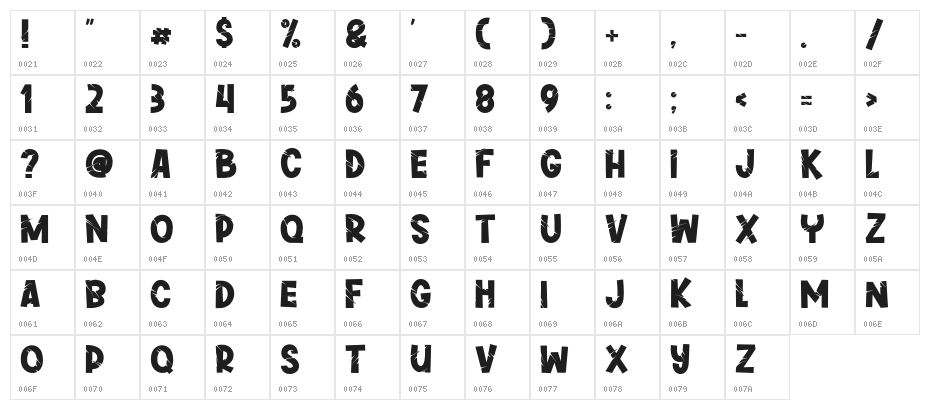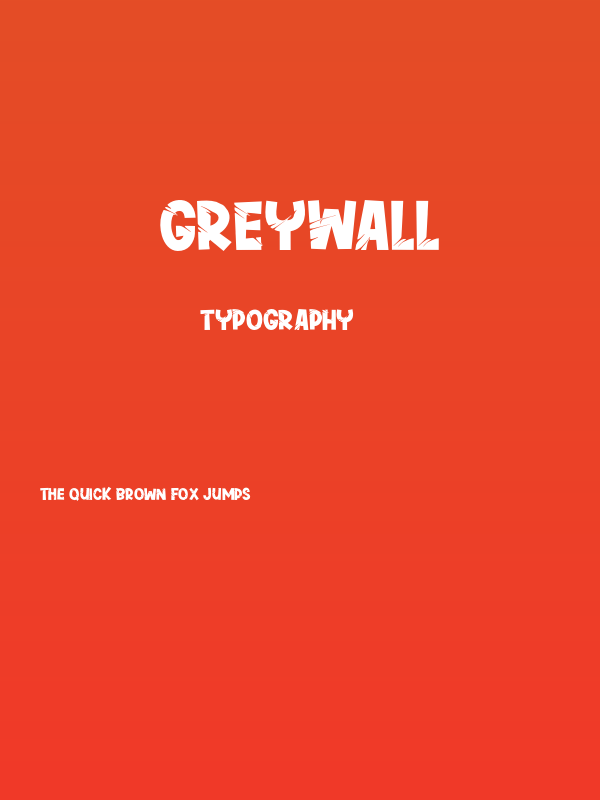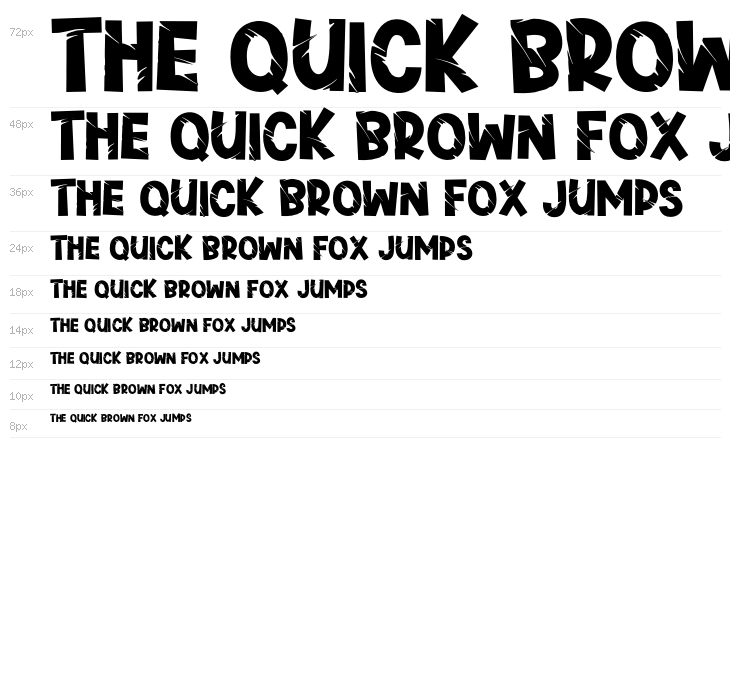
Greywall Font
Greywall Description
This font features a bold and dynamic style with a distressed, grunge-like appearance. The characters are thick and robust, with irregular cuts and slashes that give them a rugged, edgy feel. The uppercase and lowercase letters maintain a consistent weight, contributing to a cohesive look. Numbers and special characters are designed with the same distressed aesthetic, ensuring uniformity across all glyphs. This font's unique design makes it stand out, ideal for projects that require a strong visual impact. Its boldness and distinctive style make it suitable for attention-grabbing headlines, posters, and branding materials.
| Use Case | Headlines, Posters, Branding |
| Proposed Projects | Perfect for posters, branding, album covers, and any project needing a bold, impactful look. |